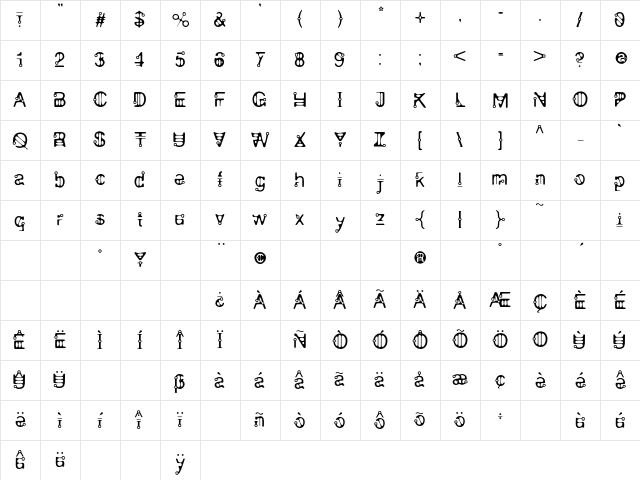
Generator Regular Free Font
Generator Regular
Design Context for Generator
Generator is a composed and adaptable typeface that performs quietly and consistently across a wide range of design contexts.